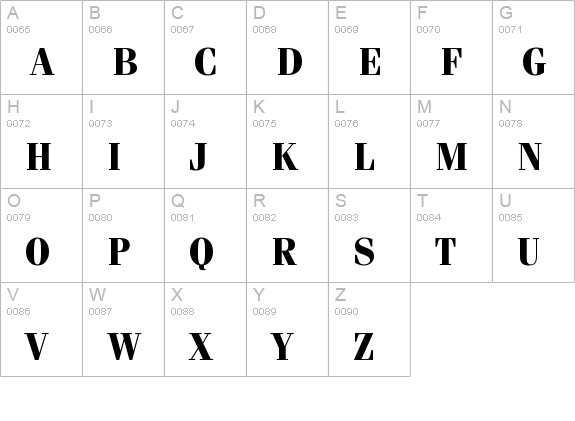
Ferrara-Bold is a strong, high-contrast variant in the Ferrara typeface family \xE2\x80\x94 well suited to headlines, attention-grabbing titles, and strong calls-to-action.
Ferrara-Bold is a stunning display font that exudes elegance and sophistication. Its bold and modern design makes it perfect for creating eye-catching headlines, titles, and branding materials. The sharp and clean lines of this typeface give it a contemporary edge while still maintaining a sense of timeless beauty. What sets Ferrara-Bold apart is its versatility - whether used in print or digital media, it commands attention and leaves a lasting impression. Its strong presence on the page ensures that your message is heard loud and clear. The best part? Ferrara-Bold is available for free download at FontsMarket.com. This means you can add this exceptional font to your design arsenal without breaking the bank. Don't miss out on the opportunity to elevate your projects with the striking beauty of Ferrara-Bold. Download it today and let your creativity soar!